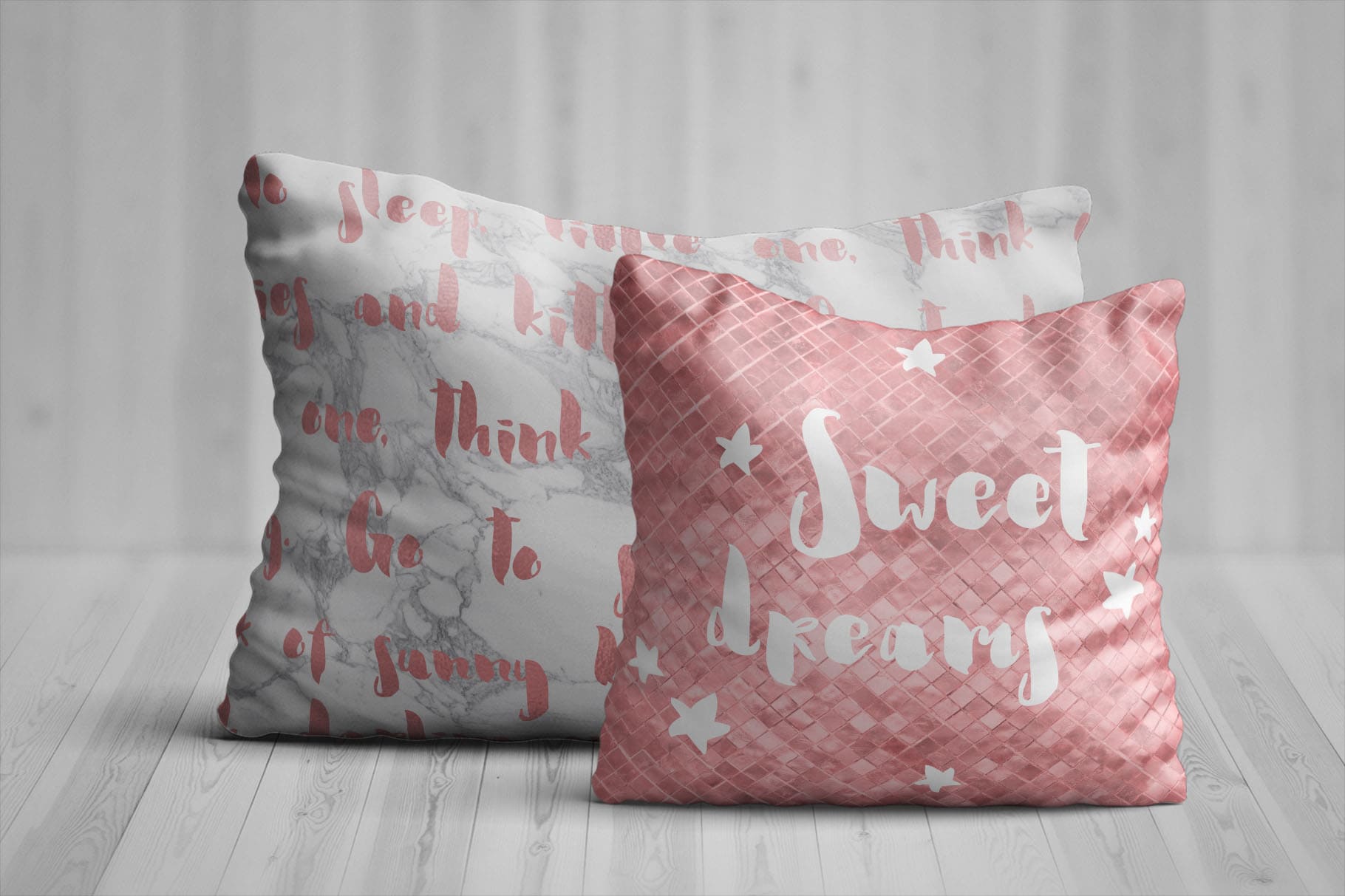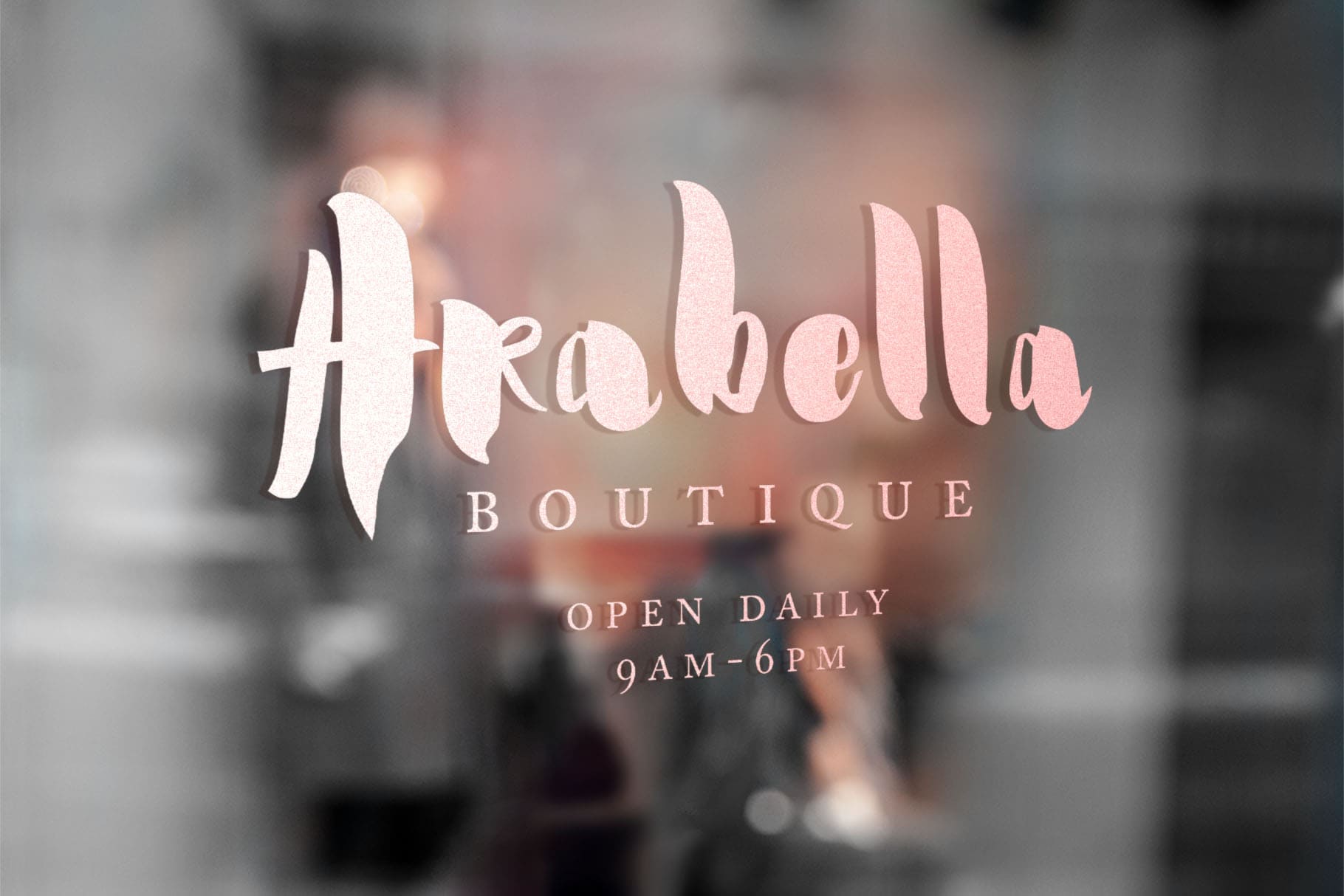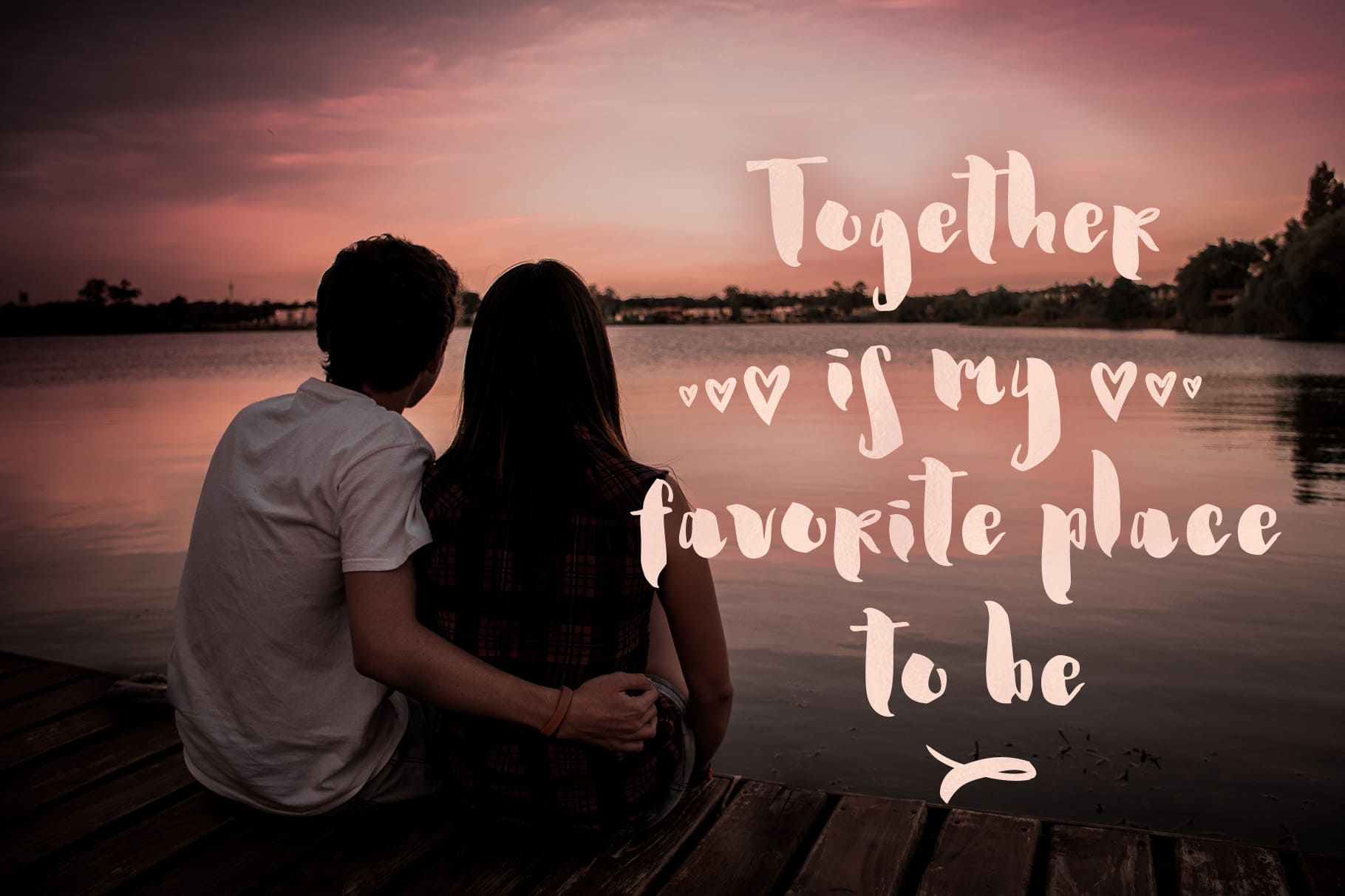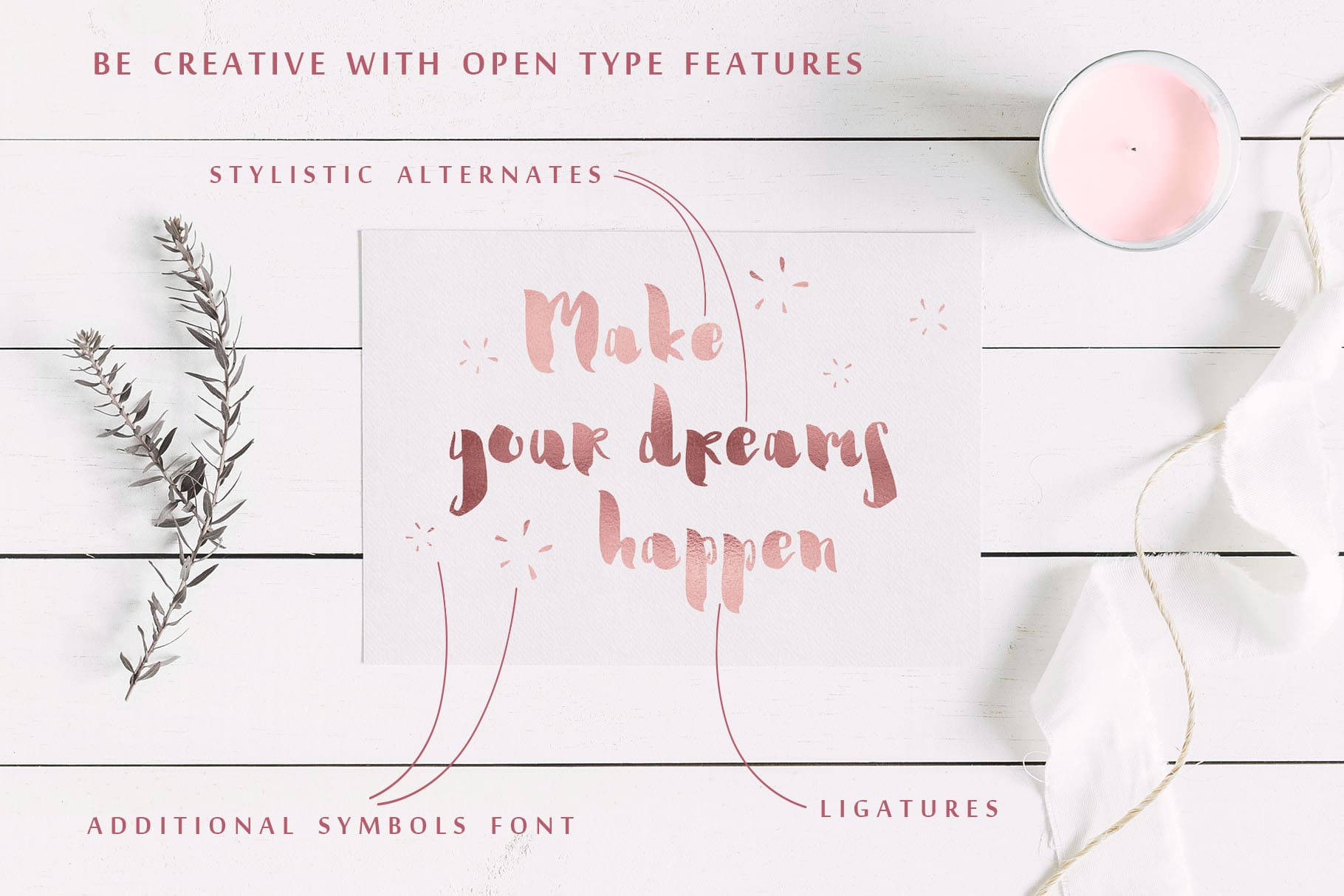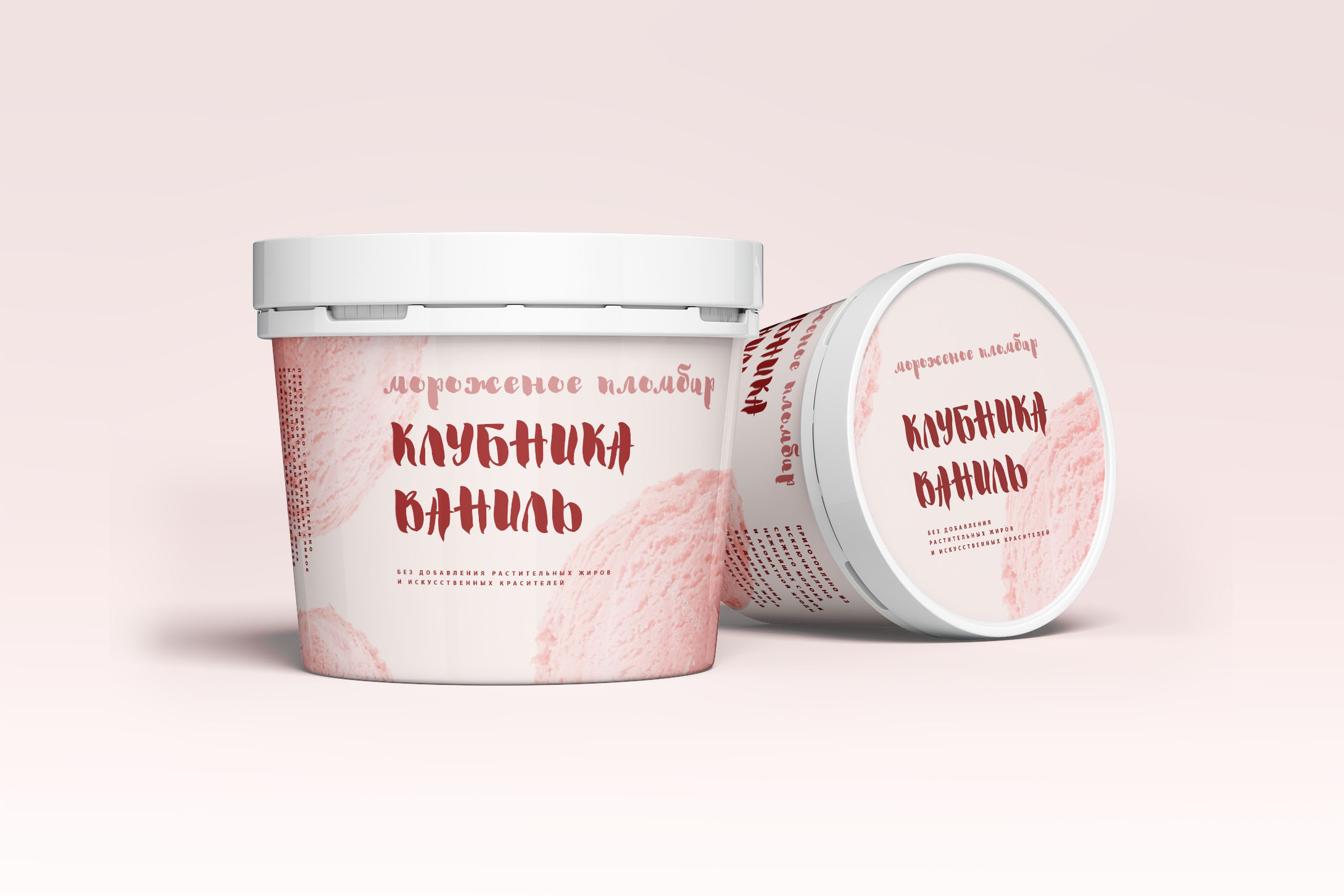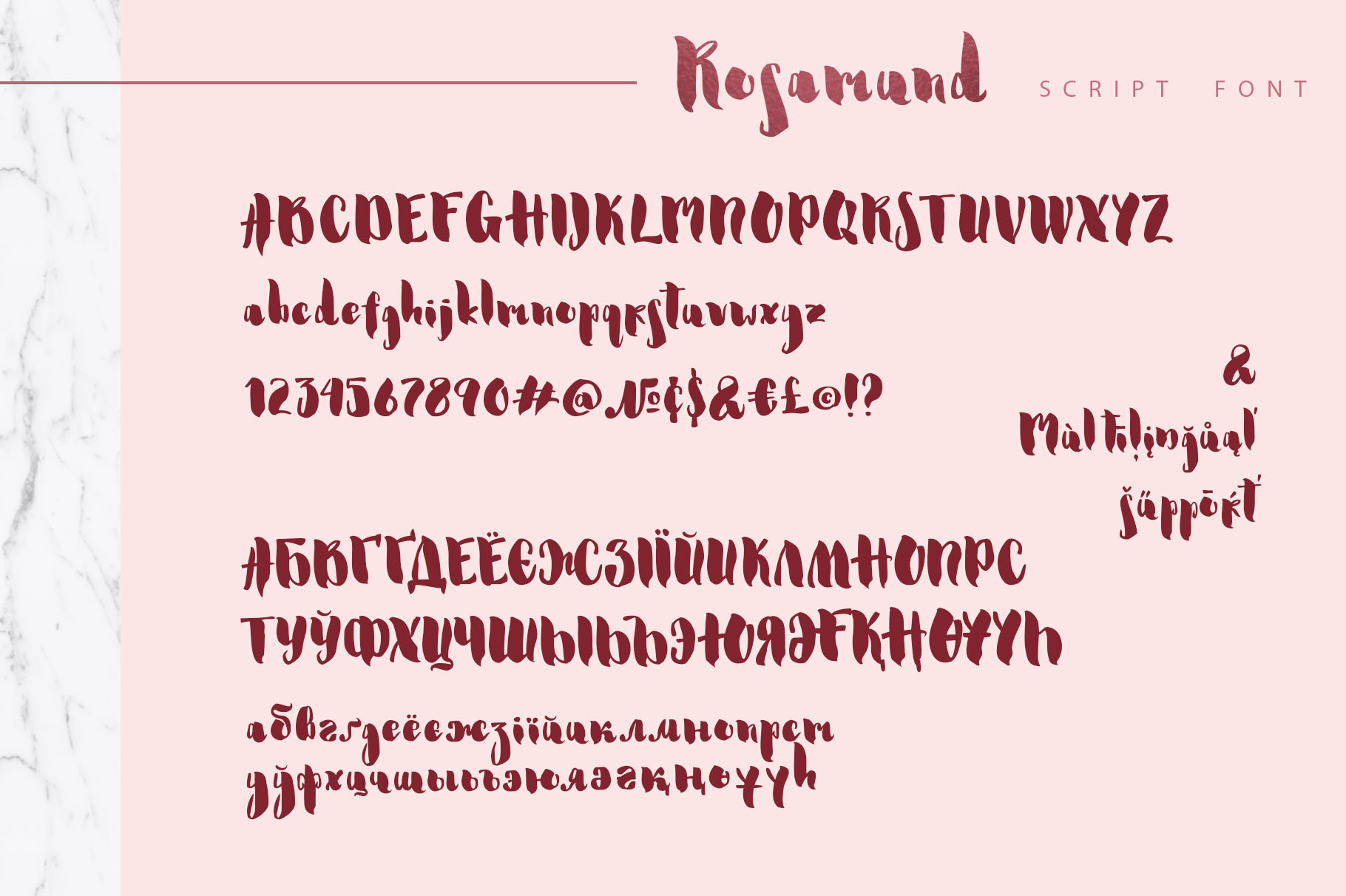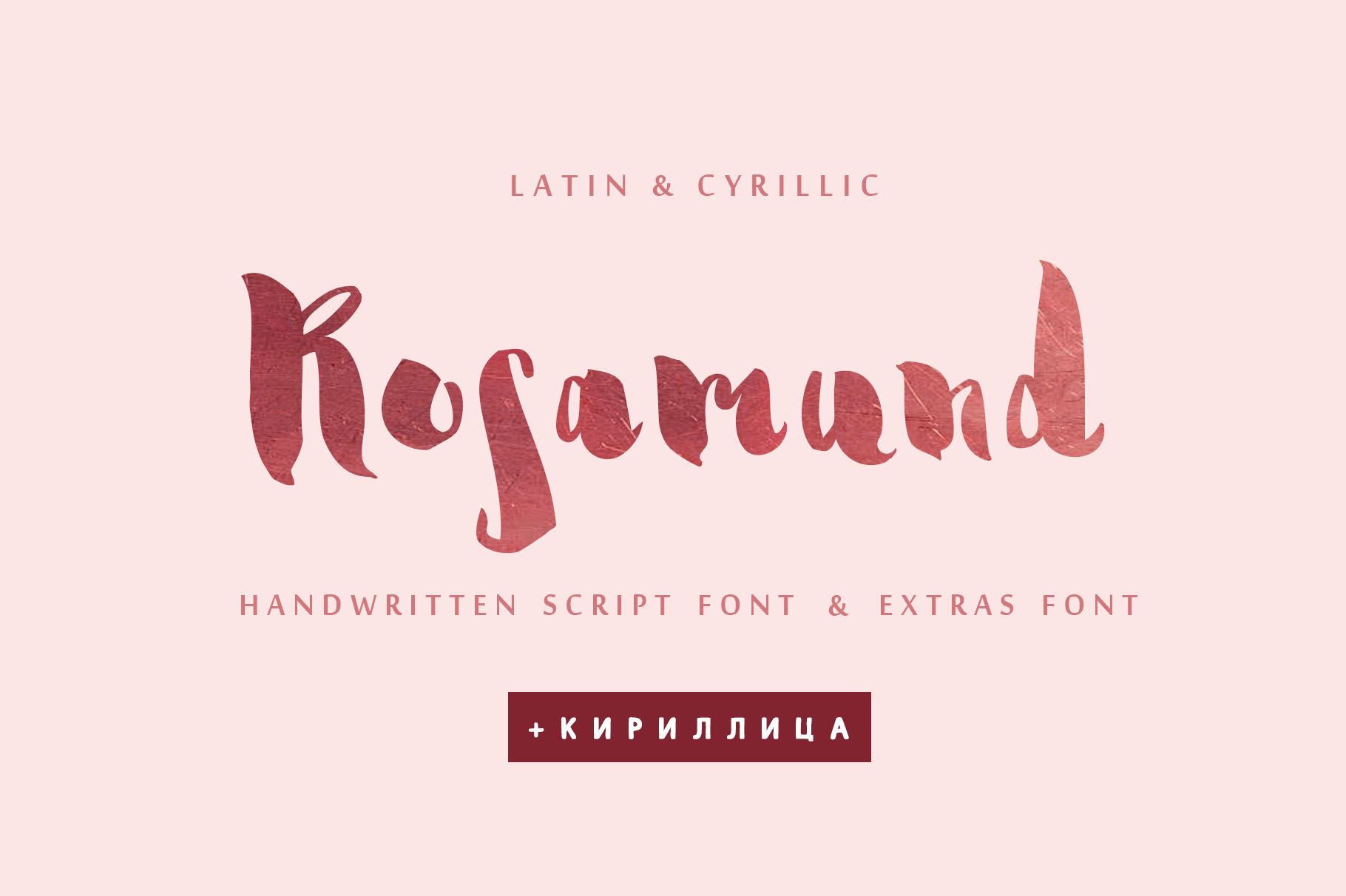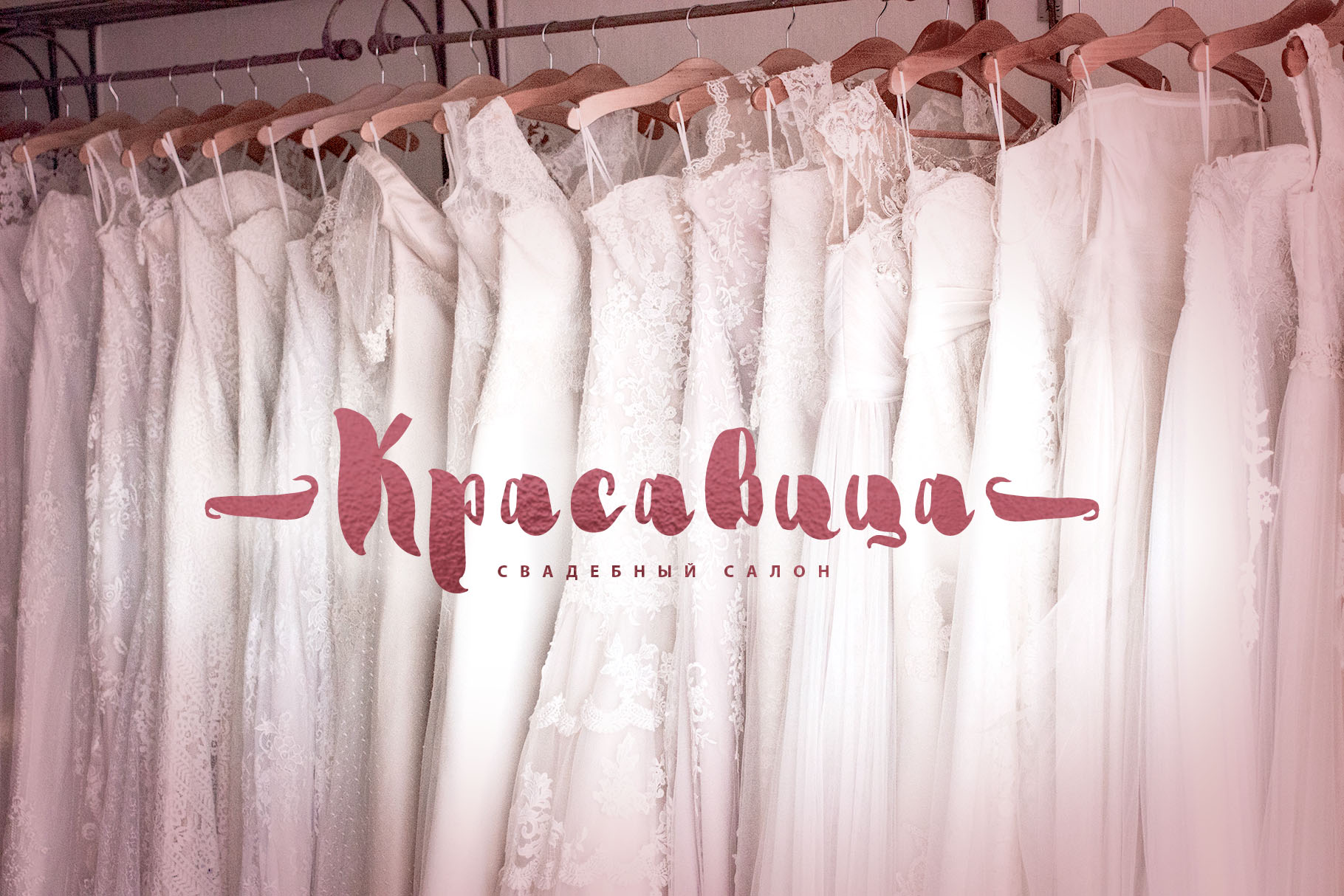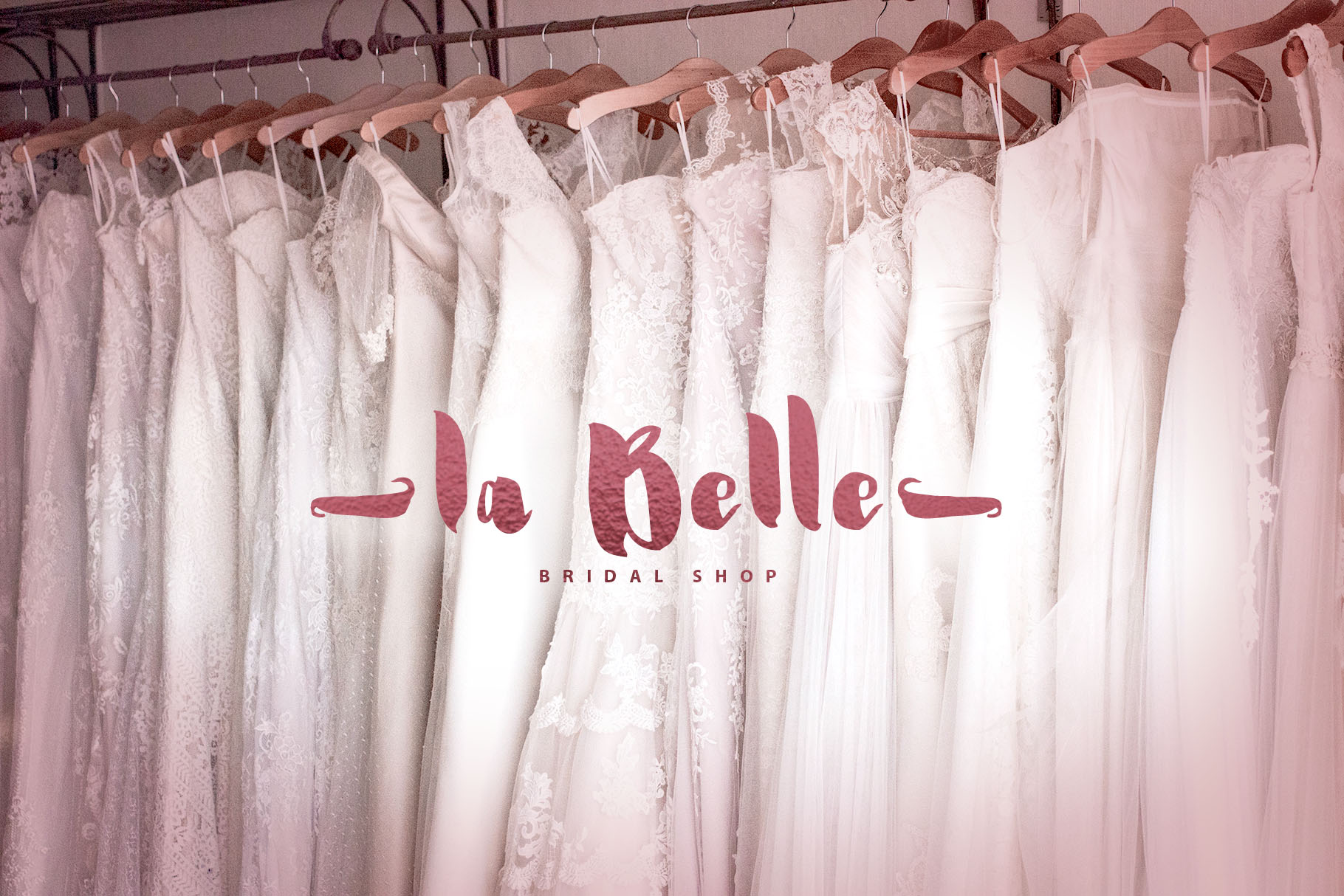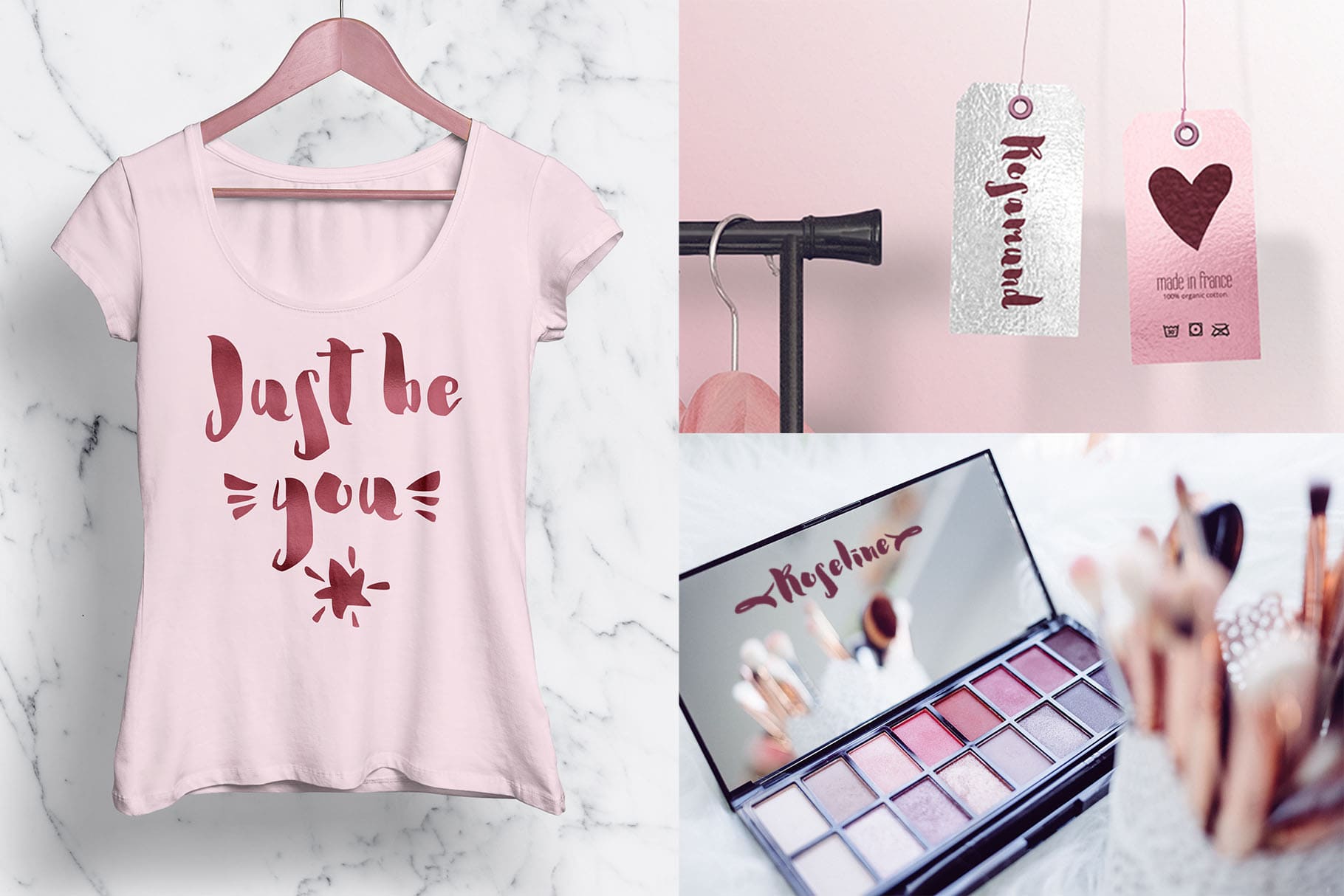
Rosamund Cyrillic Family (2 fonts)
From Ira Dvilyuk
Rosamund Cyrillic Script contains a full set of uppercase letters and 2 full sets of lowercase letters, (standard and alternative), and 17 ligatures. Use alternate lowercase and double-letter ligatures to create a perfect hand-painted look in your creations.
The Cyrillic part of the font includes a full set of gorgeous uppercase and lowercase letters, ligatures, numerals, and a large range of punctuation.
Rosamund Symbols is a font with over 50 unique, hand-drawn doodles and illustrations that can help to make your design awesome. A different symbol is assigned to every uppercase and lowercase standard character so you do not need graphics software just simply type the letter you need.
Multilingual Support for 32 languages: Afrikaans, Albanian, Basque, Bosnian, Catalan, Danish, Dutch, English, Estonian, Faroese, Filipino, Finnish, French, Galician, Indonesian, Irish, Italian, Malay, Norwegian Bokmål, Portuguese, Slovenian, Spanish, Swahili, Swedish, Turkish, Welsh, Zulu
And Cyrillic glyphs support for Russian, Belorussian, Bulgarian, Ukrainian, and Kazakh languages.